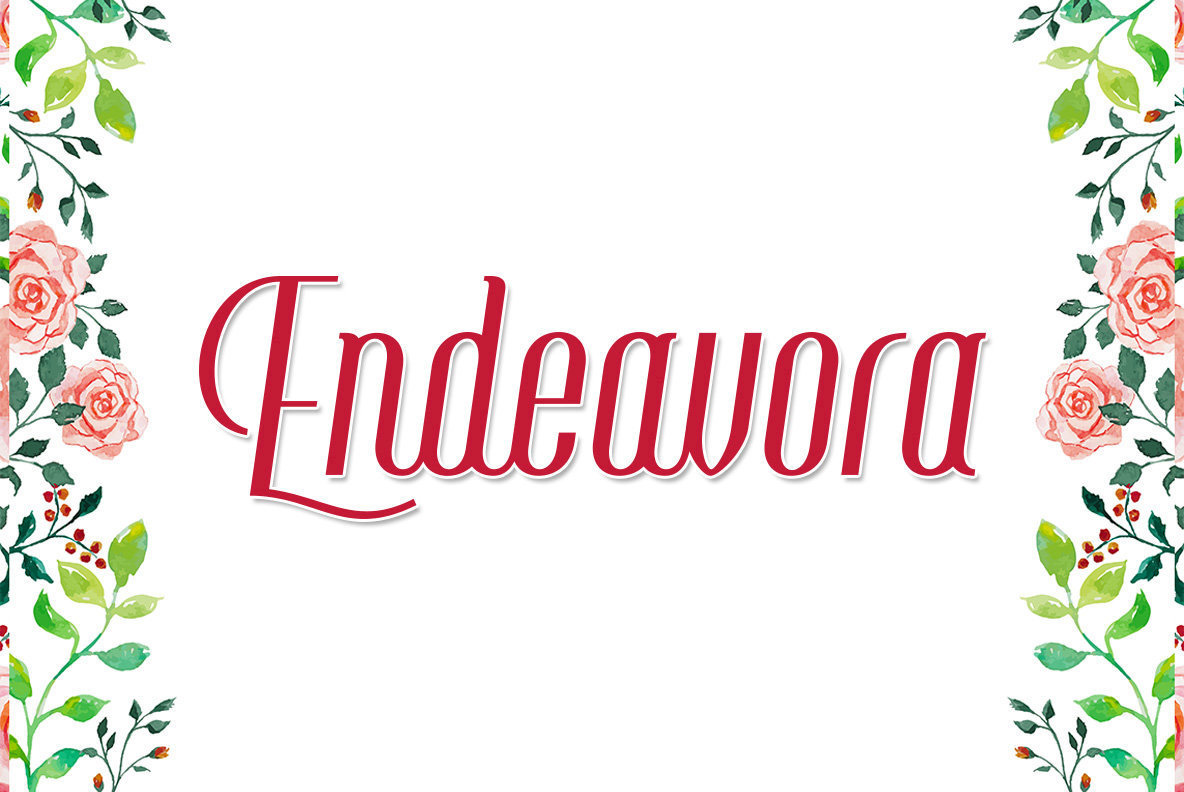
Endeavora Font
Endeavora Font is perfect for space exploration branding, aerospace company marketing, scientific expedition materials, innovation lab signage, research institute communications, technology startup branding, adventure tourism marketing, and pioneering project documentation where ambition and discovery are paramount.
What makes Endeavora Font so exciting is its inspiring ability to capture the spirit of human exploration and scientific discovery through forward-reaching letterforms that embody the courage and determination required for groundbreaking endeavors while maintaining exceptional clarity for technical documentation. The ambitious character design reflects the visionary thinking and relentless pursuit of knowledge that drives humanity's greatest achievements.
The Endeavora Font family includes thin, light, regular, medium, bold, and black weights, with futuristic variants and exploration-inspired ornamental elements that provide comprehensive tools for creating pioneering branding and discovery-focused design systems.
This visionary typeface represents the frontier of exploratory communication, combining scientific precision with contemporary innovation marketing requirements. The Endeavora Font Free Download gives pioneering organizations access to typography that communicates breakthrough potential and exploratory excellence.
The font's dynamic character architecture and progressive proportions create immediate associations with cutting-edge research and ambitious exploration projects. Each letterform has been designed to convey the forward momentum and scientific rigor essential for successful discovery missions and technological breakthroughs.
Endeavora Font excels in creating inspiring brand identities that motivate scientific advancement and exploratory achievement. The typeface's ambitious character makes it ideal for aerospace companies, research institutions, and technology organizations pushing the boundaries of human knowledge and capability.
From space agencies to innovation centers, this font brings exploratory credibility that appeals to audiences fascinated by scientific discovery and human achievement. The versatile design maintains its pioneering character across both traditional research documentation and modern digital discovery platforms.